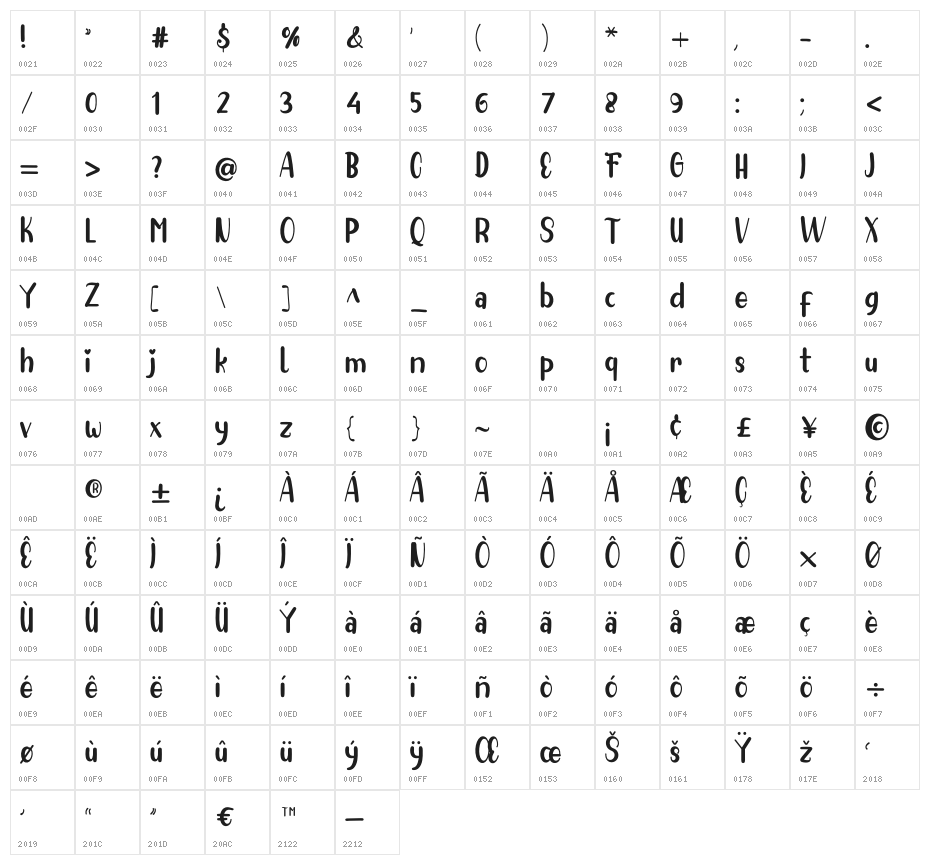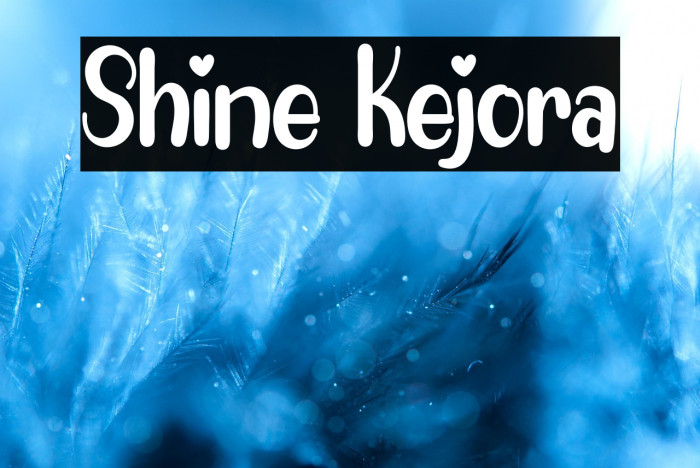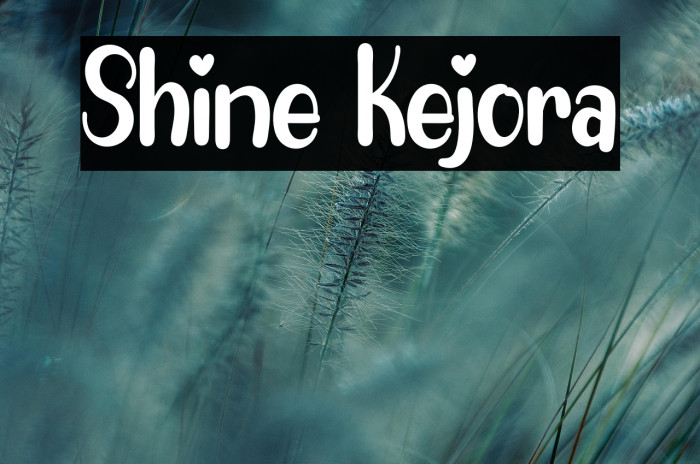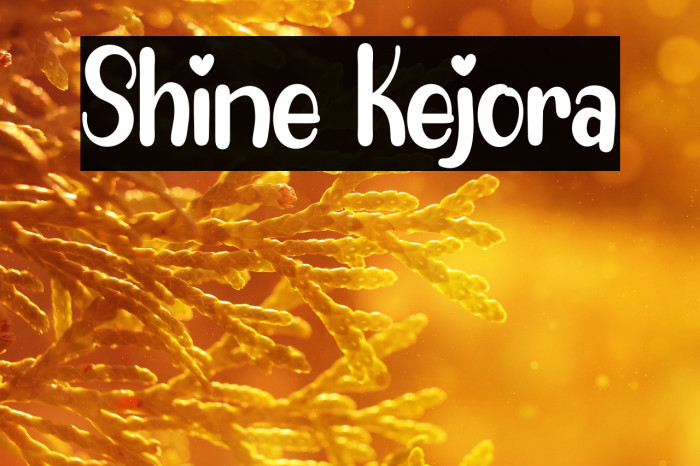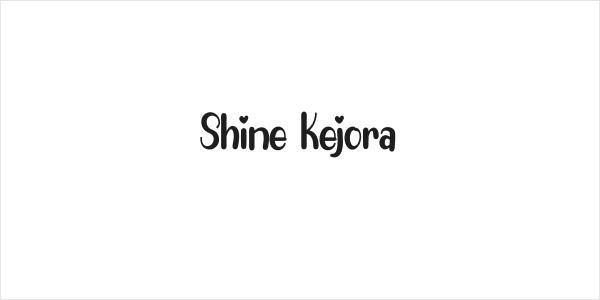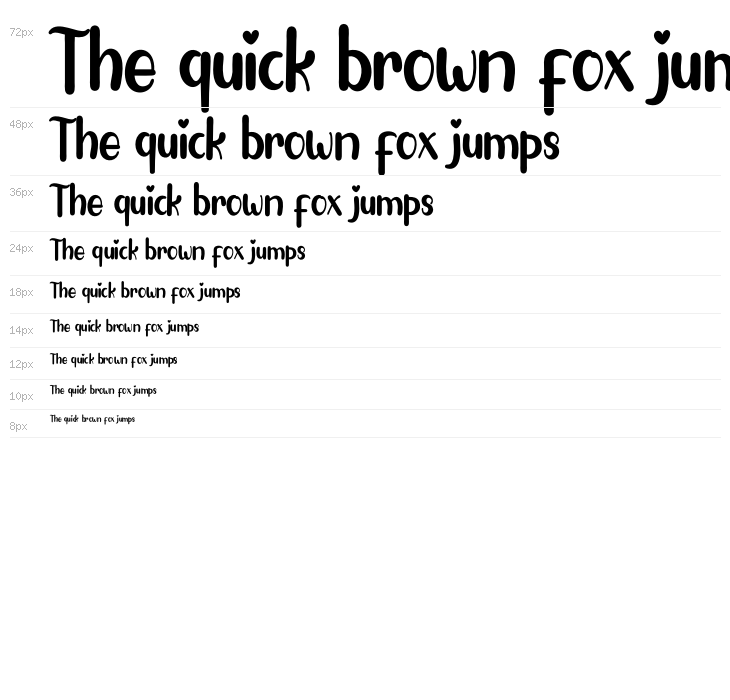
Shine Kejora Font
Shine Kejora Description
This font features a playful and whimsical design, characterized by its bold and rounded letterforms. The uppercase letters exhibit a consistent height with slight variations in width, adding a dynamic feel. The lowercase letters maintain a similar style, with some characters like 'g' and 'y' having distinctive loops that enhance its playful nature. The numerals are bold and easy to read, matching the overall style of the alphabet. Special characters are included, maintaining the same bold and rounded aesthetic. This font is perfect for projects that require a fun and engaging look.